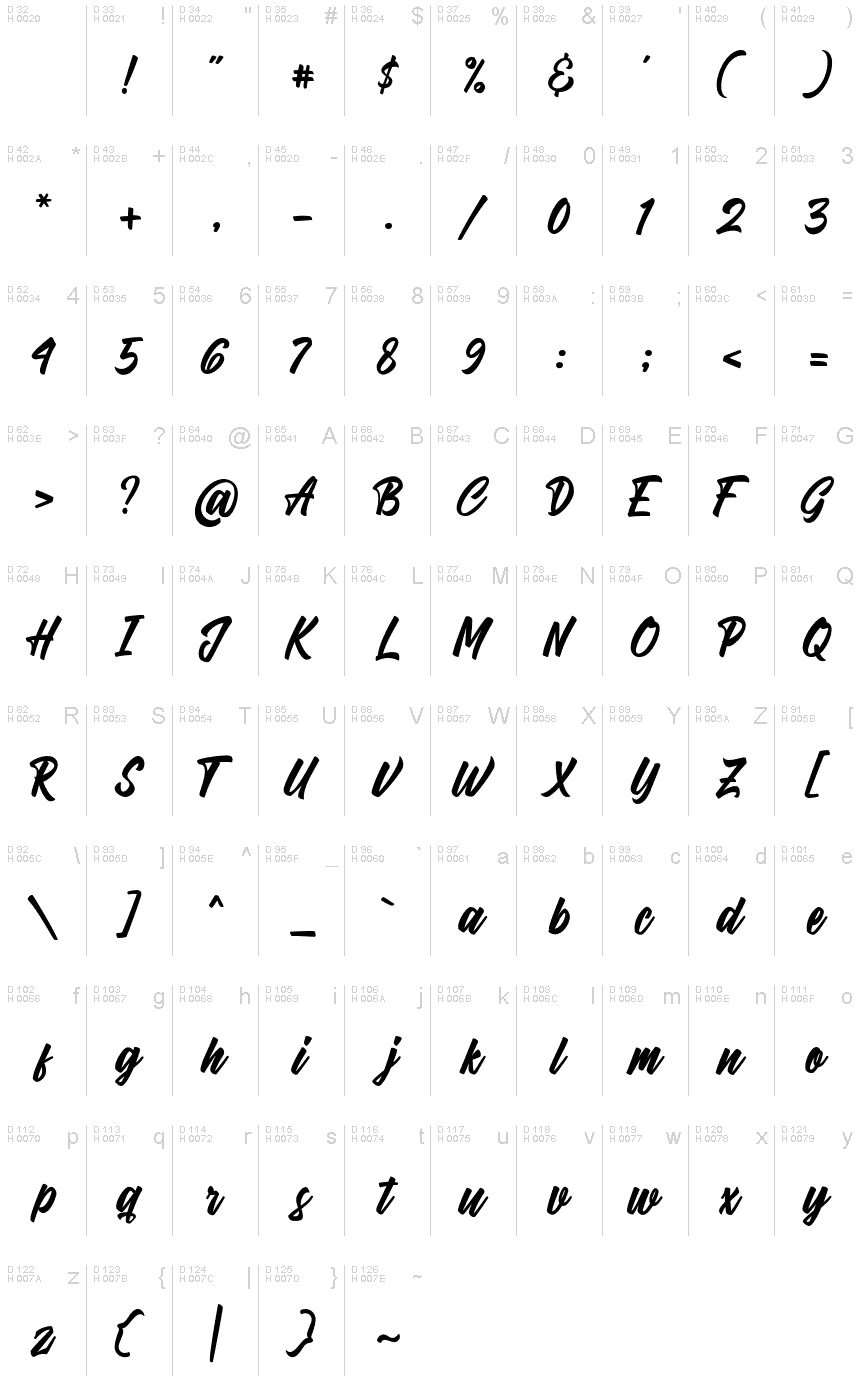
DartybeScript
Dartybe Script, a captivating handwritten font by Tebaltipis Studio, brings a touch of elegance to any project.
With its semi-condensed width, this font is perfect for adding flair to wedding invitations, creating stunning logos for boutique brands, or designing eye-catching packaging for artisanal products. Its flowing strokes and unique letterforms captivate the reader's attention and evoke a sense of sophistication. Dartybe Script is also an excellent choice for social media graphics, blog headers, and stylish advertisements, making your content stand out in the digital world.